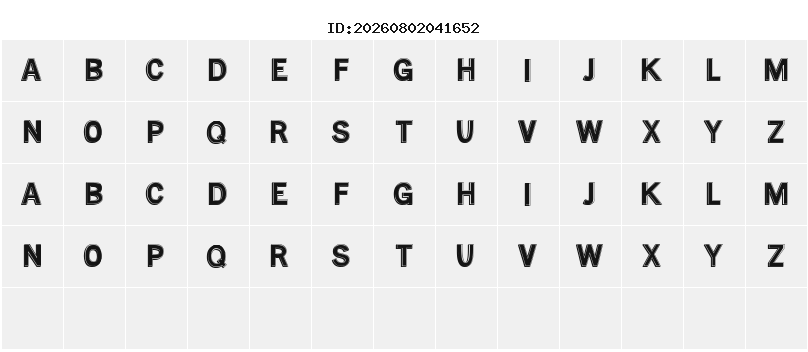
• Font Name: MTF Base Outline
• Designer: Tina Raparanta a.k.a. MissTiina
About MTF Base Outline.ttf
MTF Base Outline.ttf is a modern, elegant sans-serif font designed for ultimate readability and visual harmony. Perfect for branding, headlines, web design, and print materials.